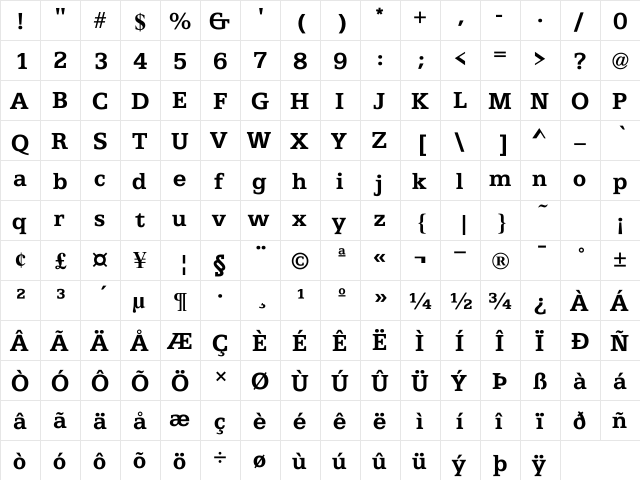
ATFAntique Bold
| Foundry | SoftMaker/ATF |
| Designer | Barnhardth Bros. & Spindler |
Design Context for ATFAntique Typeface
ATFAntique wears its vintage influences proudly, with letterforms that recall mid-century signage, classic packaging, and nostalgia-driven design. Its bold stroke weight gives it real presence on the page.
Font Pairing: Combine ATFAntique with a simple slab or neutral sans — period-accurate companions reinforce the vintage feel without competing for attention.
Pro Tip: Use ATFAntique for headlines and pull quotes rather than body copy — its personality is best appreciated in short, focused bursts.